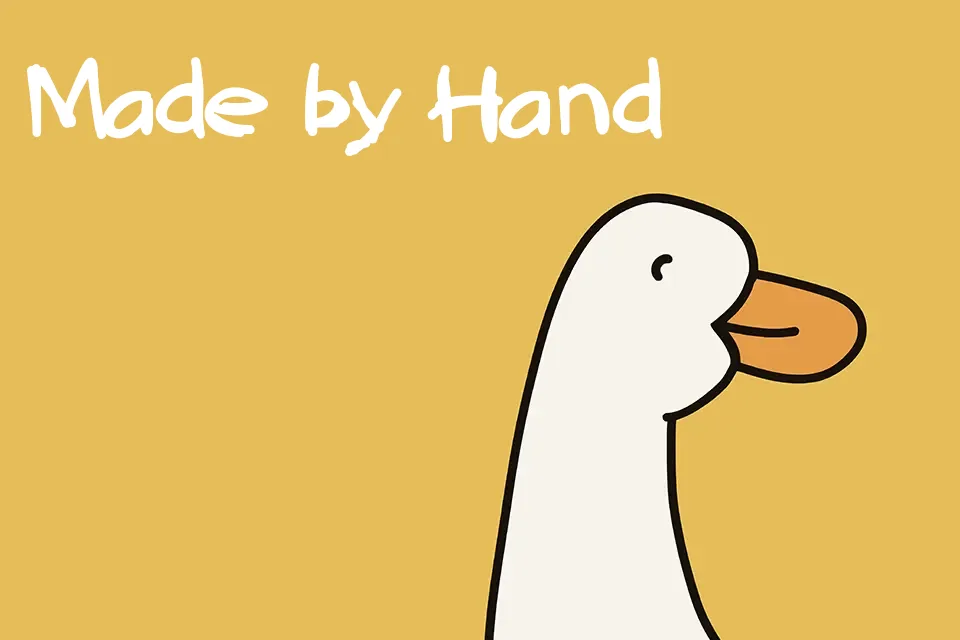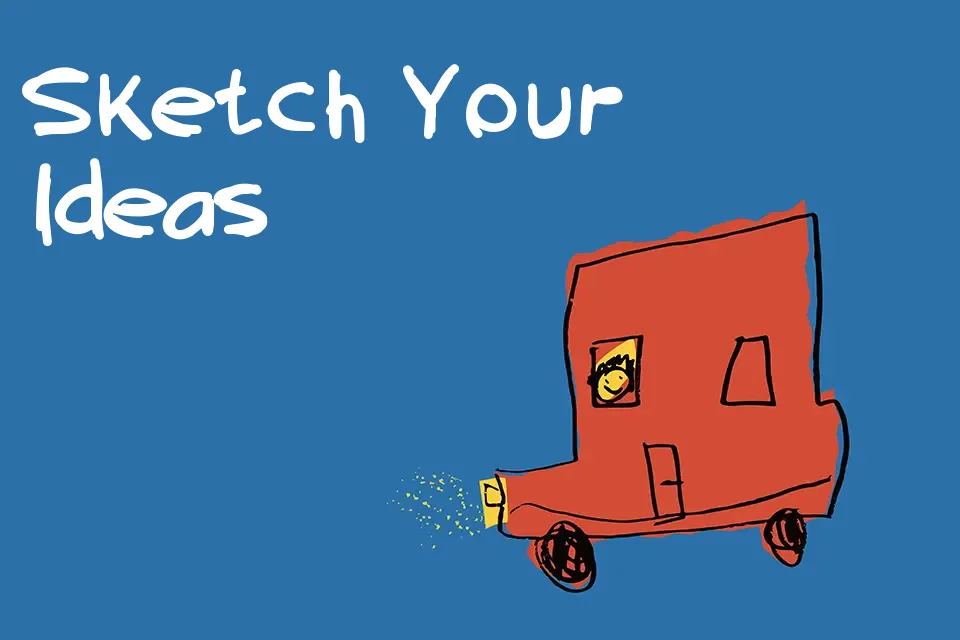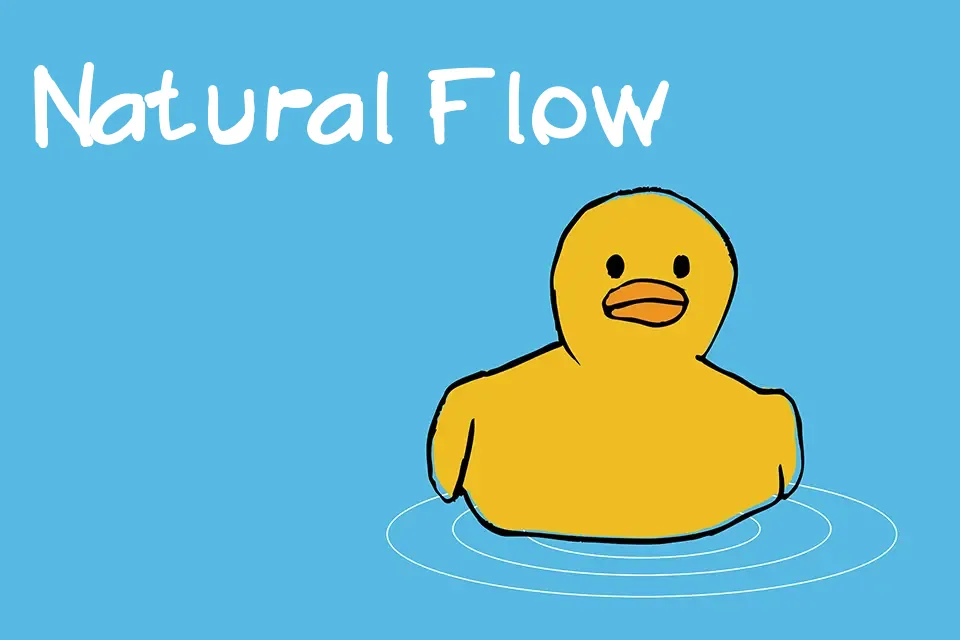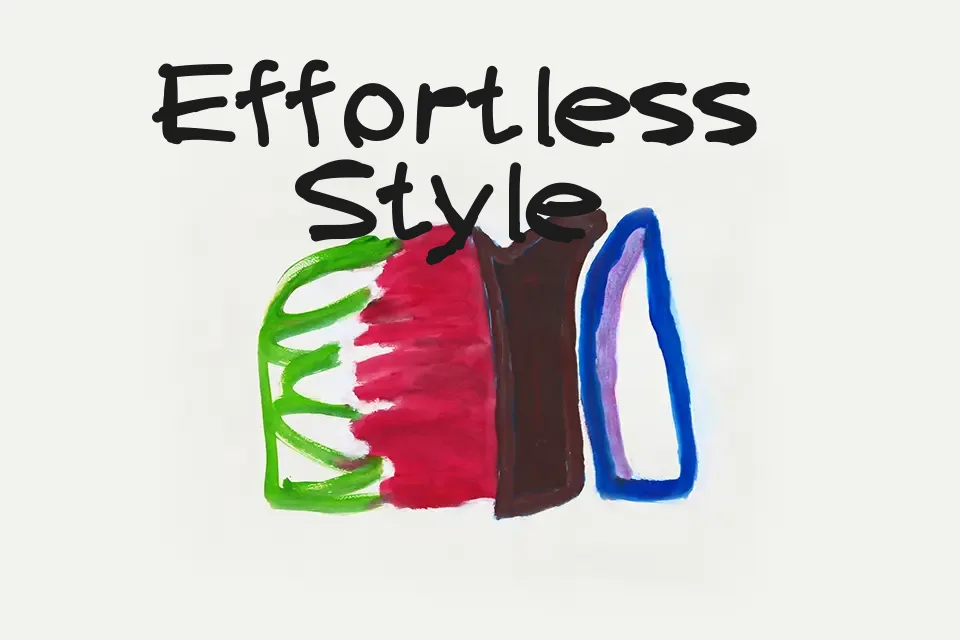
Quick As A Bunny Font
Quick As A Bunny Font features a lively hand-printed structure with energetic, irregular strokes that give the letterforms a spontaneous appearance. The characters display slightly uneven proportions and a bouncy baseline, contributing to its organic, casual rhythm. Its stroke thickness remains relatively consistent, providing solid visibility in larger text, though the loose spacing can cause slight visual crowding when scaled down. The typeface performs effectively in playful packaging or children’s book covers where a friendly tone is needed. However, the informal alignment reduces its readability in long paragraphs. Overall, the varied letter heights help maintain an authentic, human-made aesthetic across short display settings.
children’s product packaging
casual social media graphics
playful apparel design
Perfect for headline, kids, and packaging, with a cute and cartoon style.